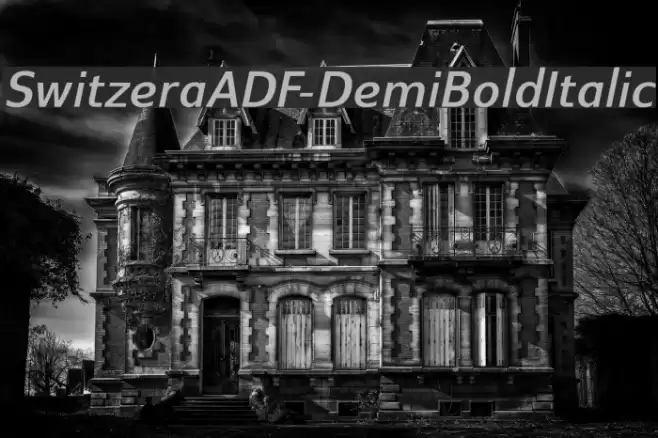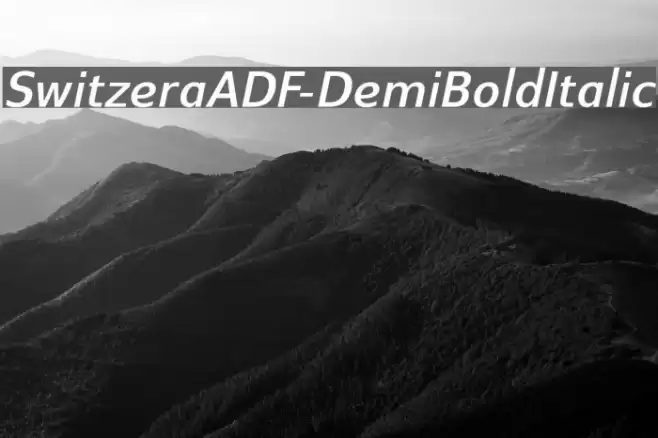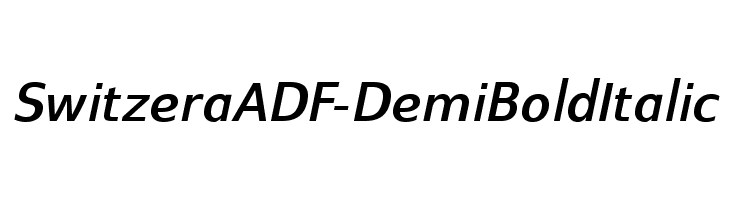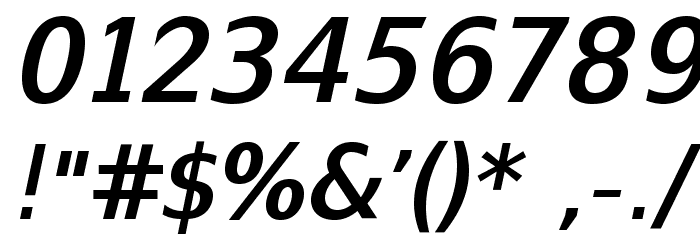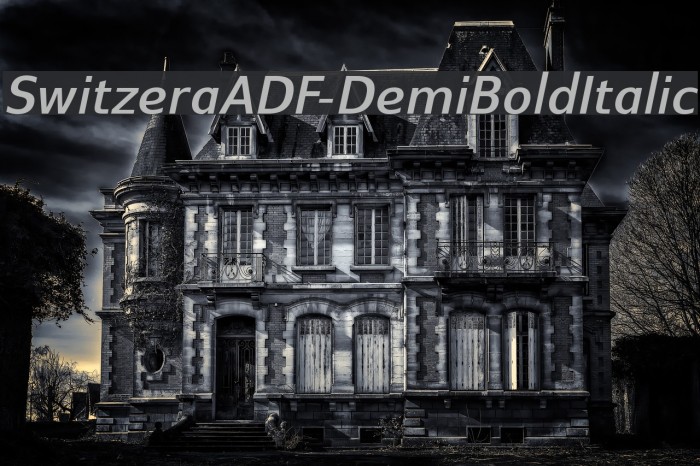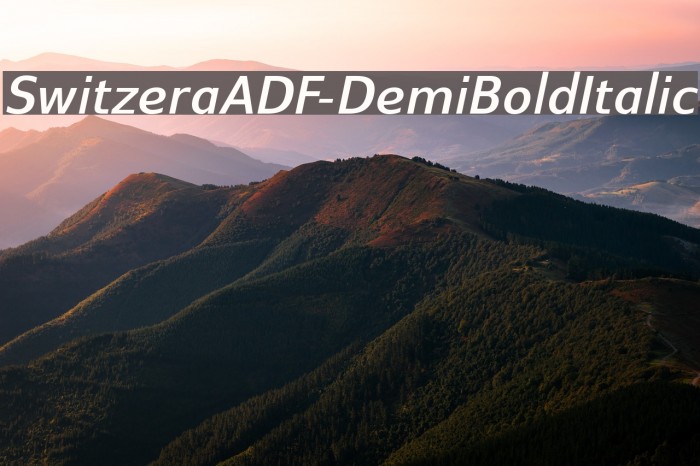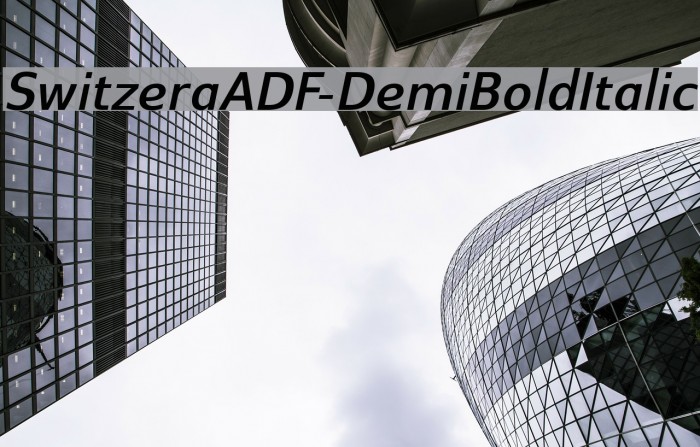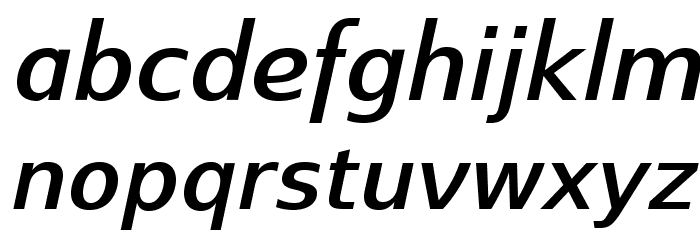
SwitzeraADF-DemiBoldItalic Font
SwitzeraADF-DemiBoldItalic Description
This font exhibits a modern and sleek design with a slightly italicized slant, giving it a dynamic and forward-moving appearance. The characters are well-proportioned with a consistent stroke width that provides a clean and professional look. The uppercase letters are bold and assertive, while the lowercase letters maintain a smooth and approachable style. Numerals are clear and easy to read, making them suitable for various applications. The special characters are distinct and well-integrated, ensuring versatility in design projects.
A modern, italicized font with a clean and professional look from Uncategorized fonts.
- Proposed Projects: Ideal for branding, advertising, and editorial design where a modern and professional appearance is desired.